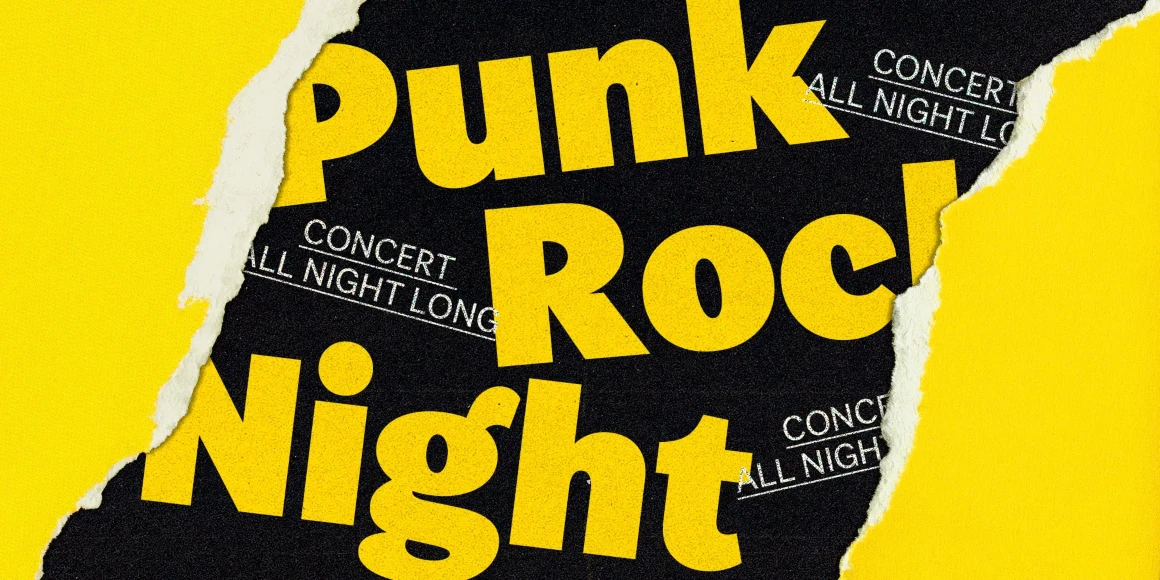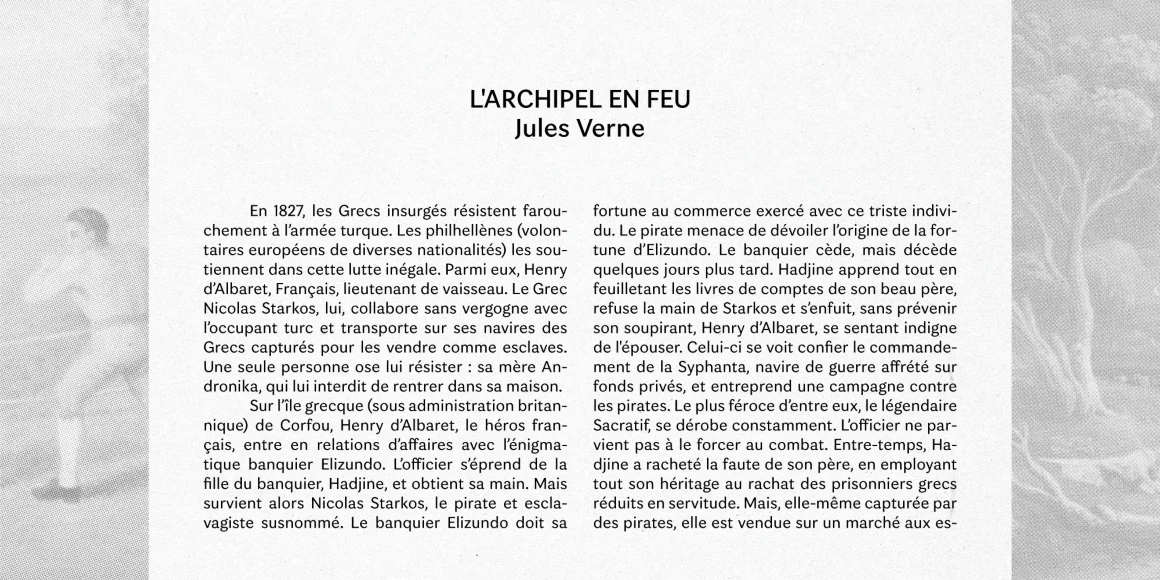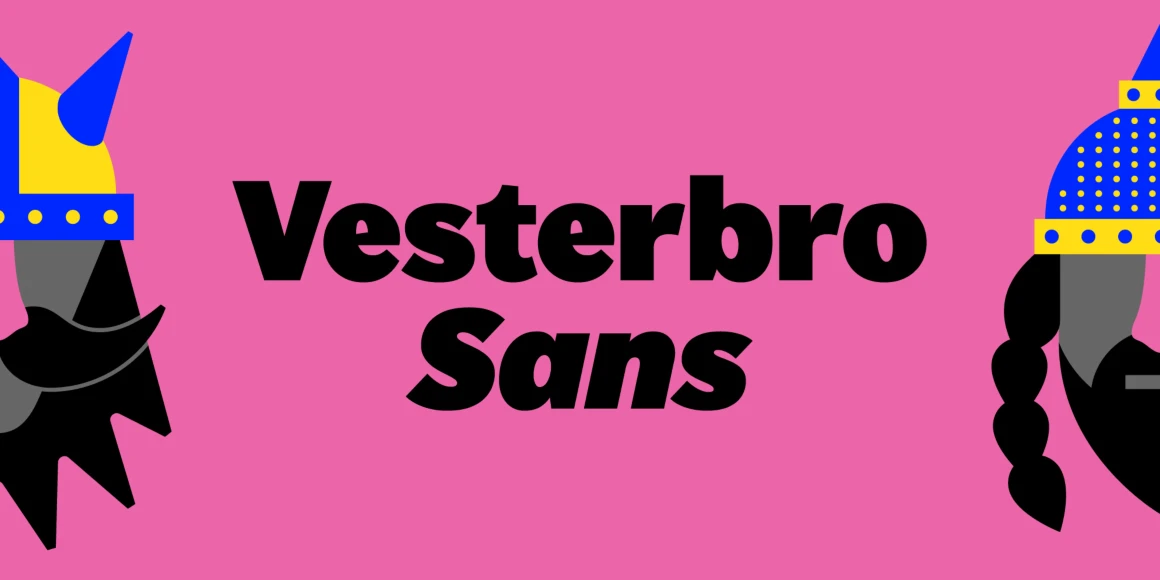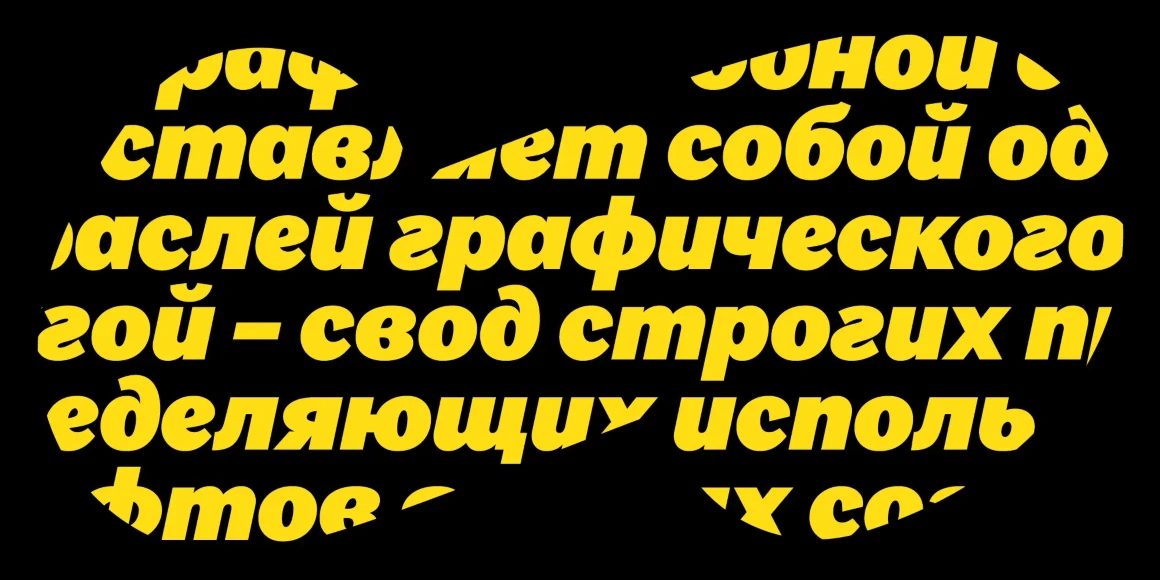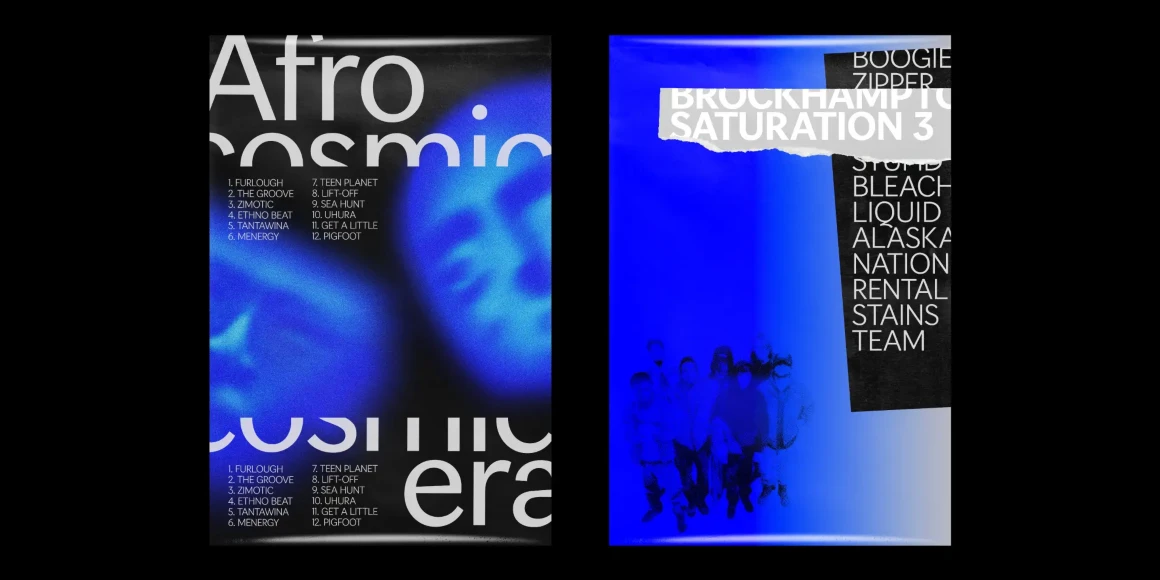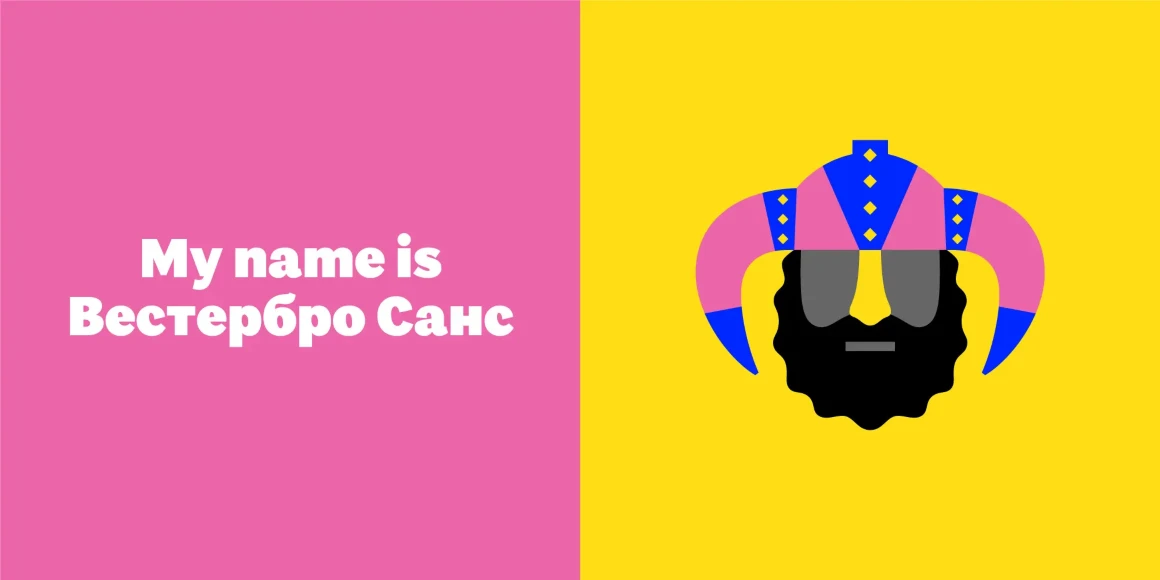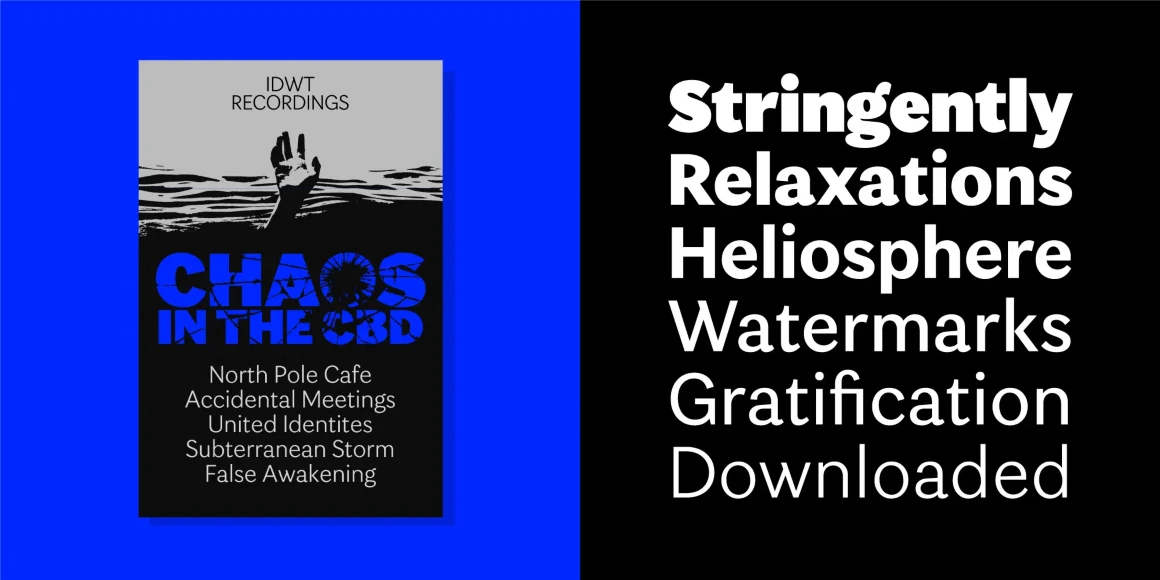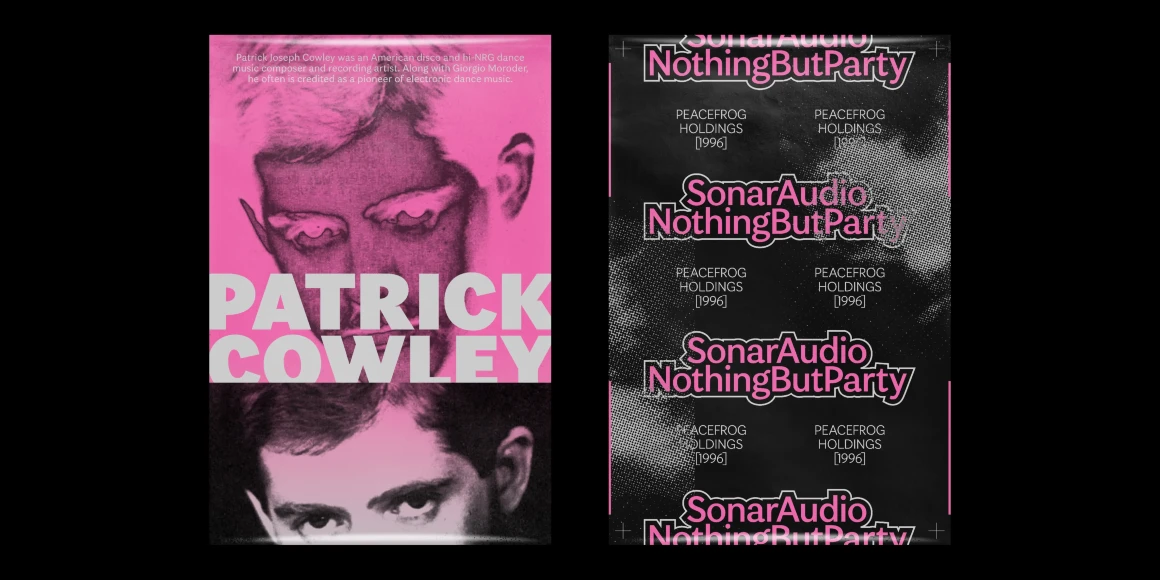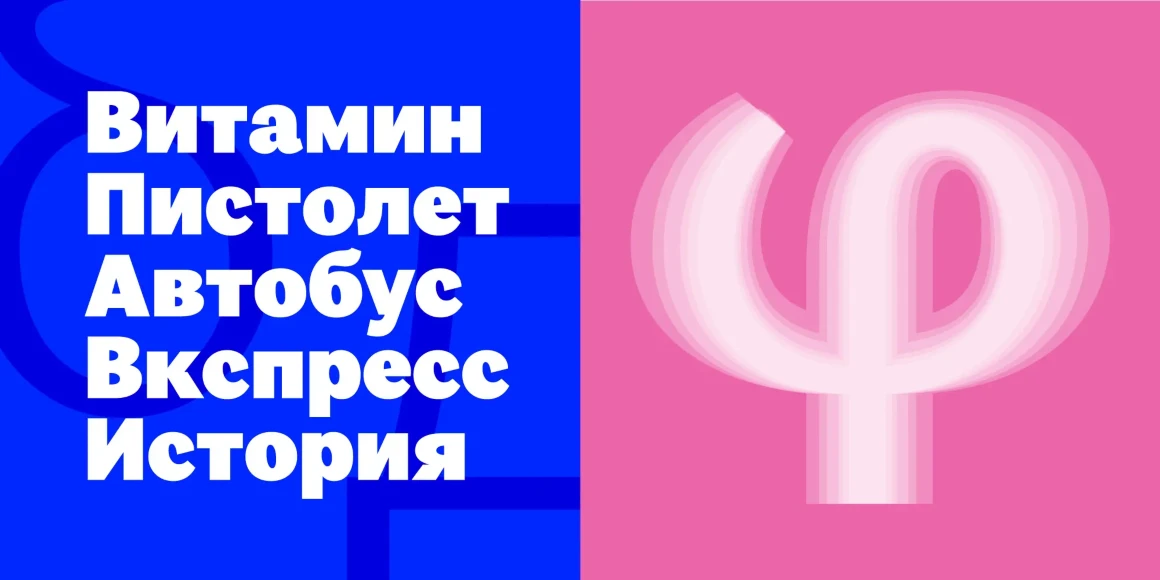
Vesterbro Sans
Vesterbro Sans is a sans serif font family balancing versatility with expressive detail. Distinctive features such as a two-storey g, large counters, and angled terminals give it a humanist tone, setting it apart from other run-of-the-mill geometric designs. Available in Light to ExtraBold, plus a tightly spaced Poster style, all supporting Latin, Greek, and Cyrillic. Vesterbro Sans offers precision and personality for branding, editorial, and global design, all while extending the concept of Vesterbro.